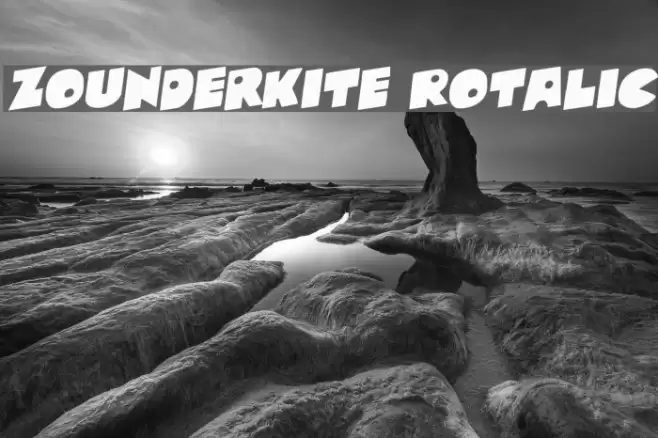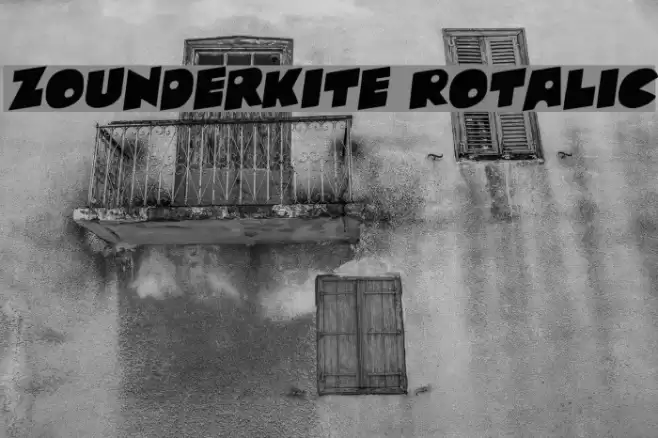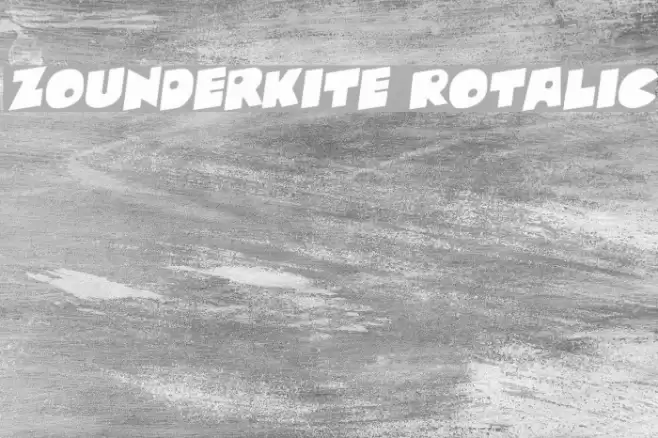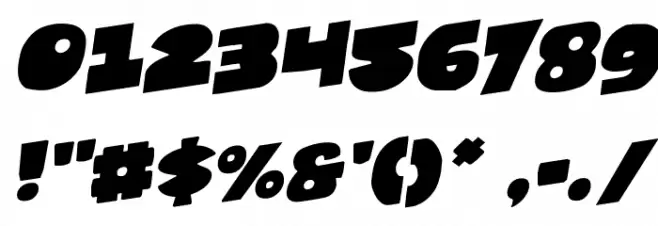
Zounderkite Rotalic Font
Zounderkite Rotalic Description
This font features a bold and dynamic style with a playful and energetic appearance. The characters are thick and robust, with a slight slant that adds a sense of motion and excitement. The strokes are consistent in weight, providing a uniform look across all characters. The design includes unique, angular cuts and curves that give it a distinctive, modern flair. The spacing between characters is tight, enhancing the compact and impactful nature of the text. This font is ideal for projects that require a strong visual presence and a touch of creativity.
A bold, dynamic font with a playful, energetic style and tight character spacing from Cartoon fonts.
- Proposed Projects: Ideal for posters, branding, headlines, and any design needing a strong, modern impact.
- Character Spacing: Tight